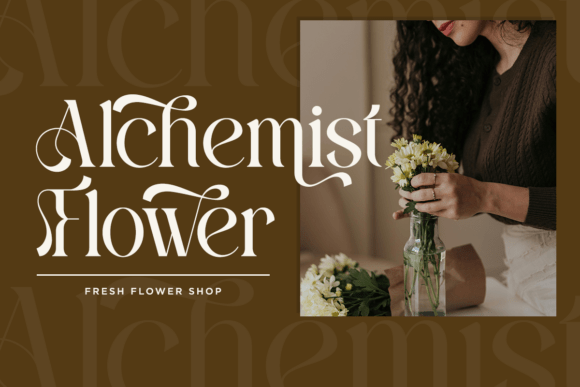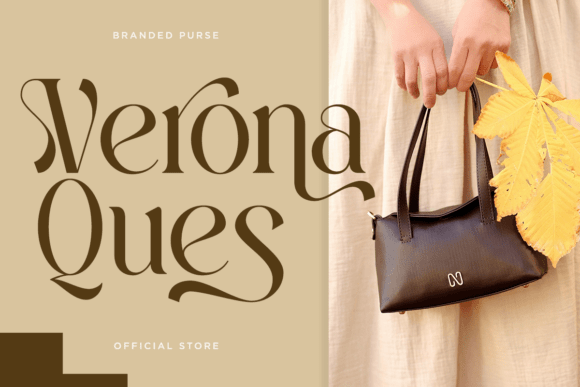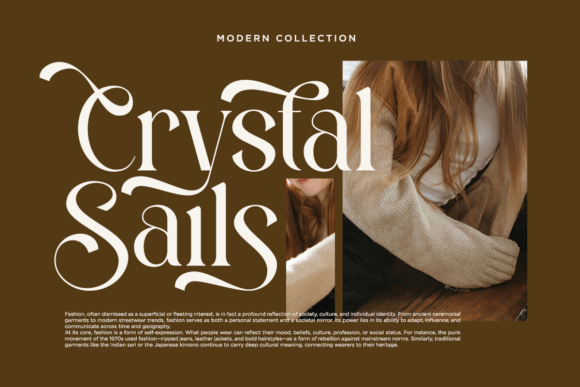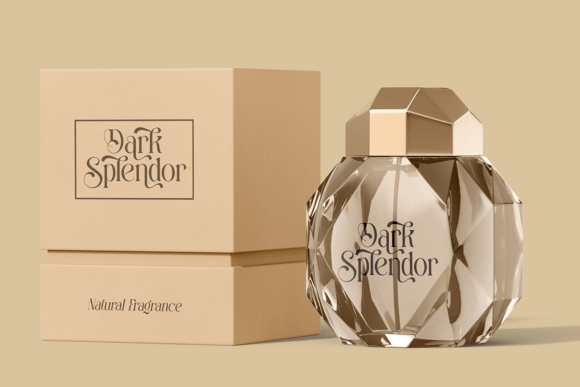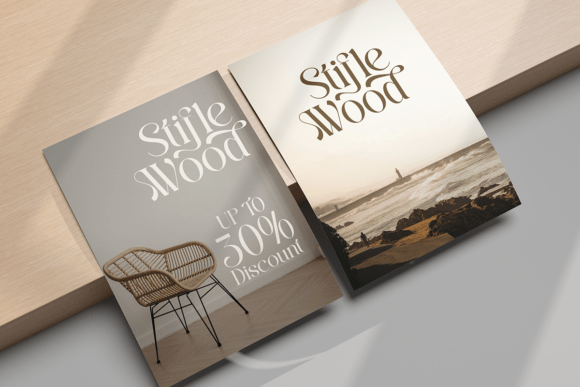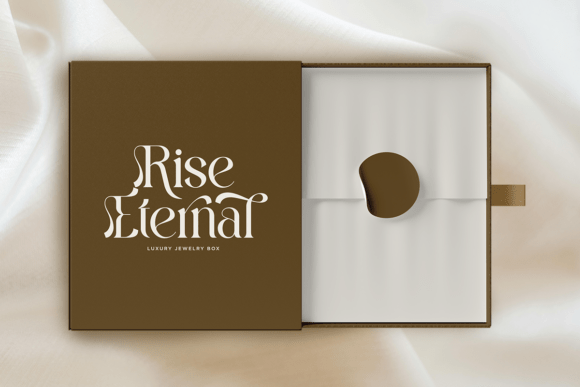
Introducing Harmony Dream Font: Elevate Your Designs with Timeless Elegance
In the world of typography, few fonts manage to strike a balance between classic sophistication and modern charm. Harmony Dream, a decorative serif font, is one such exceptional typeface that effortlessly merges the best of both worlds. Designed to captivate at first glance, Harmony Dream is perfect for creatives who want to bring a luxurious and graceful feel to their work. Whether you’re a designer, craftsperson, or simply someone who appreciates beautiful typography, Harmony Dream is sure to leave a lasting impression.
Unique Characteristics of Harmony Dream
Harmony Dream boasts several distinctive features that set it apart from other fonts. Its high contrast strokes, unique swashes, and refined curves create a visually stunning effect that’s perfect for a range of applications. The font’s high contrast strokes add a touch of drama and elegance, while the swashes and alternate characters provide a creative outlet for designers looking to add a personal touch to their work.
One of the standout features of Harmony Dream is its unique glyphs, including the beautiful large swash on the ‘H’. This attention to detail ensures that the Harmony Dream typeface captures attention and provides a memorable visual signature for any project. The font’s refined curves and sophisticated lines make it ideal for editorial design, fashion branding, logos, wedding invitations, and any project that seeks a balance between classic and contemporary aesthetics.
Ideal Applications for Harmony Dream
Harmony Dream is a versatile font that can be used in a variety of applications. Its luxurious and elegant feel makes it perfect for:
- Luxury Branding: Use Harmony Dream to create a sophisticated brand identity that exudes elegance and refinement.
- Wedding Stationery: Add a touch of romance and whimsy to your wedding invitations, save-the-dates, and other stationery with Harmony Dream.
- Sophisticated Magazine Titles: Use Harmony Dream to create eye-catching magazine titles that convey a sense of luxury and sophistication.
- Product Labels: Elevate your product labels with a touch of dreamy elegance, perfect for high-end products or special editions.
Technical Details: PUA Encoding for Effortless Customization
Harmony Dream is not just a beautiful font; it’s also designed with practicality in mind. The font is PUA-encoded, ensuring effortless access to all glyphs, swashes, and alternate characters. This means you can easily customize your creations without having to navigate complex design software. With Harmony Dream, you can:
- Access a range of swashes and alternate characters to add a personal touch to your designs.
- Easily switch between different glyphs to create a unique visual identity.
- Enjoy a seamless design experience, thanks to the font’s PUA encoding.
Why Choose Harmony Dream?
With so many fonts available, why choose Harmony Dream? Here are just a few reasons why this exceptional typeface stands out:
- Timeless Elegance: Harmony Dream’s classic design ensures it will remain relevant for years to come.
- Versatility: Use Harmony Dream in a range of applications, from luxury branding to wedding stationery.
- Customization: With PUA encoding and a range of glyphs, you can easily customize Harmony Dream to suit your design needs.
In conclusion, Harmony Dream is a sophisticated decorative serif font that’s perfect for creatives who want to add a touch of luxury and elegance to their work. With its unique characteristics, versatility, and technical details like PUA encoding, Harmony Dream is sure to become a go-to font for designers and craftspersons alike.
Whether you’re looking to create a stunning brand identity, design beautiful wedding stationery, or simply add a touch of sophistication to your projects, Harmony Dream is the perfect choice. So why wait? Discover the beauty of Harmony Dream today and elevate your designs to new heights.